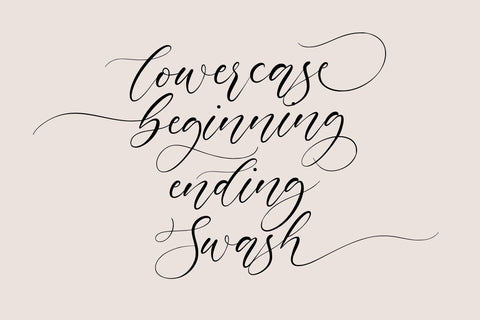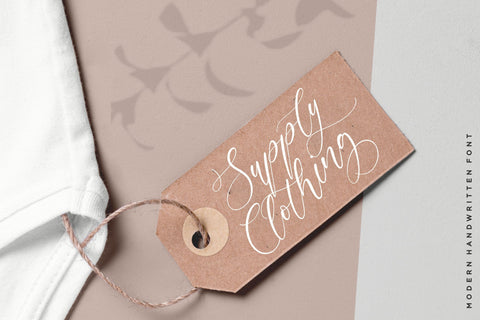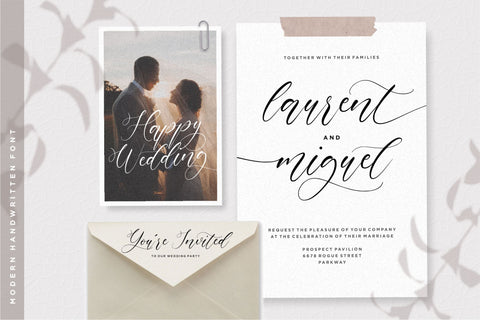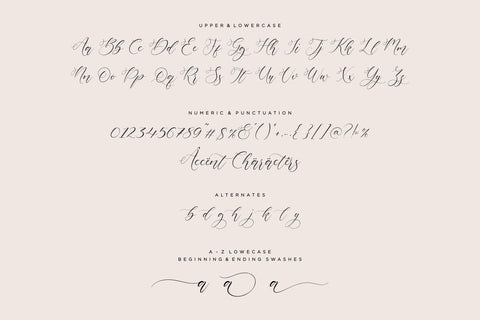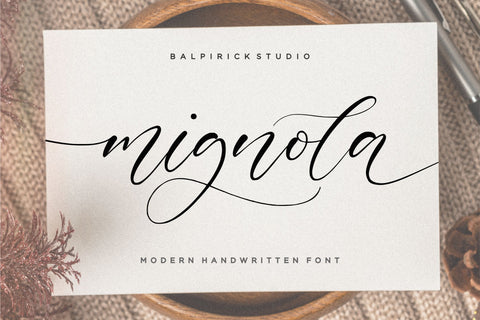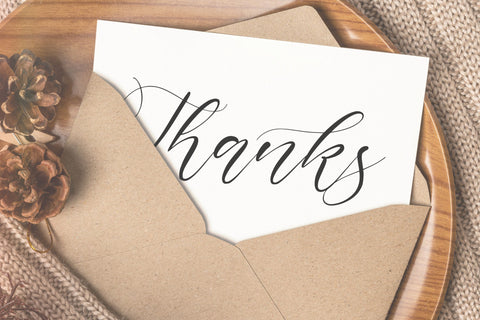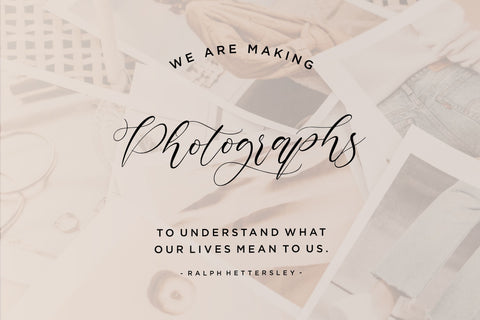
mignola Modern Handwritten Font
Proudly Present, mignola Font.
mignola is a Modern Handwritten Font.
mignola is perfect for product packaging, branding project, megazine, social media, wedding, or just used to express words above the background.
Lowercase font Stylistic Alternates Ligatures Symbols & Punctuation OpenType Features.